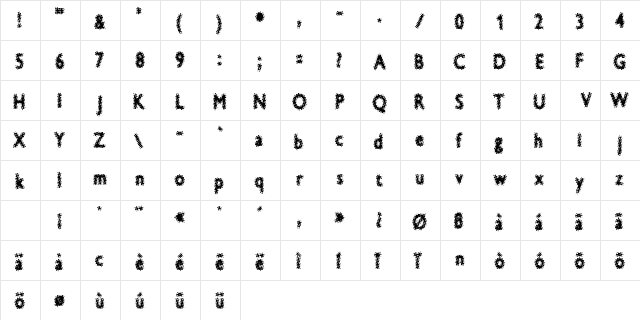
Blue Expeditt Regular
Design Context for Blue Expeditt Typeface
Blue Expeditt takes a measured approach to typography — its balanced proportions and neutral character make it a reliable workhorse for both digital and print work.
Pro Tip: Pair Blue Expeditt with a font of contrasting weight or personality to build a more expressive typographic hierarchy.